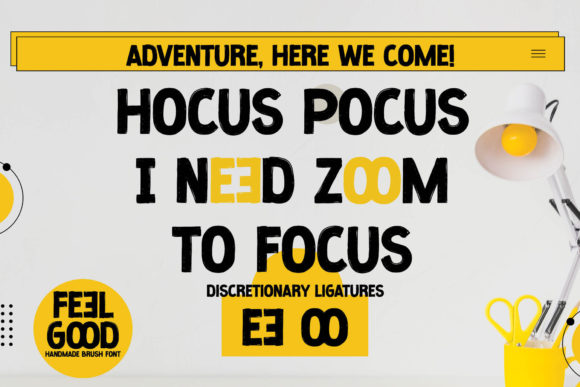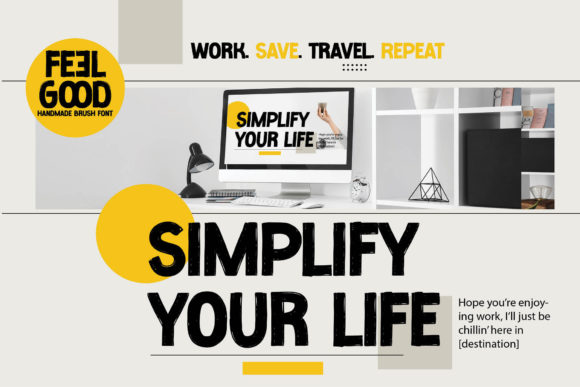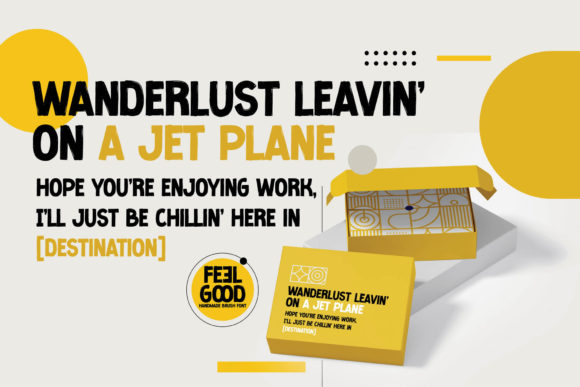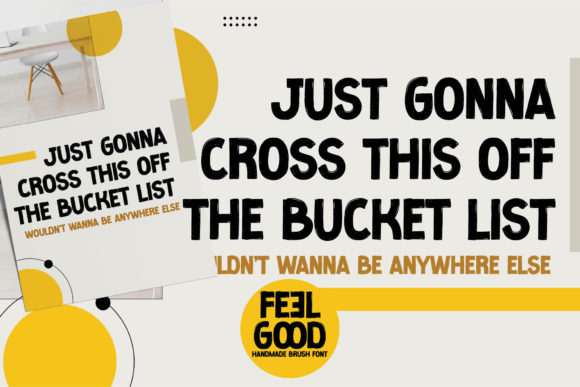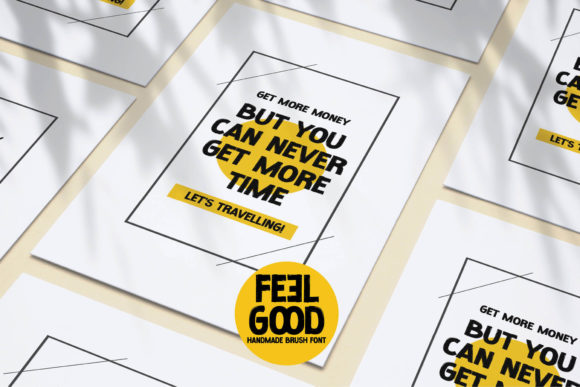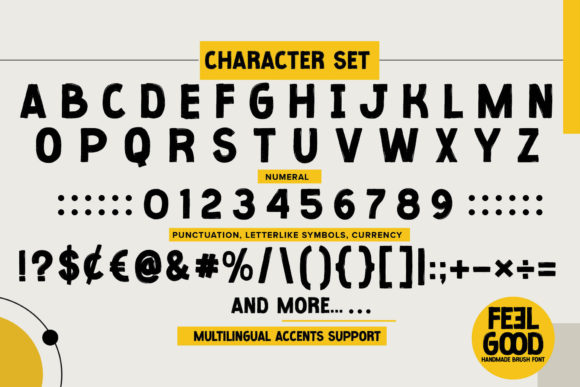
Introducing Feel Good Font: The Perfect Choice for Creative Projects
Are you a designer or crafter looking for a font that can add a personal touch to your creative projects? Look no further than Feel Good Font, a brush sans serif font that is written casually and quickly for a natural appearance. In this article, we’ll explore the features and benefits of Feel Good Font, and why it’s perfect for homeware designs, product packaging, banners, marketing materials, and other bold creative projects.
What is Feel Good Font?
Feel Good Font is a unique and versatile font that is designed to give your projects a friendly and approachable feel. It’s a brush sans serif font, which means it has the casual and spontaneous look of brush script, but with the clean and modern lines of sans serif typography. This font is perfect for designers and crafters who want to add a personal touch to their work, without sacrificing legibility or style.
Key Features of Feel Good Font
- Casual and Natural Appearance: Feel Good Font is written casually and quickly, giving it a natural and effortless look that’s perfect for creative projects.
- Brush Sans Serif Style: The font combines the best of both worlds, with the casual look of brush script and the clean lines of sans serif typography.
- Highly Legible: Despite its casual appearance, Feel Good Font is highly legible, making it perfect for use in a variety of applications, from body text to headings.
- Versatile: Feel Good Font is a versatile font that can be used in a wide range of creative projects, from homeware designs to product packaging, banners, and marketing materials.
Feel Good Font is perfect for designers and crafters who want to add a personal touch to their creative projects. Here are some ideas for using Feel Good Font:
- Homeware Designs: Use Feel Good Font to add a friendly and approachable touch to your homeware designs, from labels and packaging to signage and advertising.
- Product Packaging: Make your product packaging stand out with Feel Good Font, which is perfect for labels, branding, and marketing materials.
- Banners and Signage: Use Feel Good Font to create eye-catching banners and signage that grab attention and communicate your message.
- Marketing Materials: Add a personal touch to your marketing materials, from brochures and flyers to social media graphics and email newsletters.
Why Choose Feel Good Font?
There are many fonts to choose from, but Feel Good Font stands out for its unique combination of style, versatility, and legibility. Here are some reasons why you should choose Feel Good Font for your creative projects:
- Unique Style: Feel Good Font has a unique and distinctive style that’s sure to set your projects apart from the crowd.
- High-Quality Design: Feel Good Font is designed to high standards, with careful attention to detail and a focus on legibility and style.
In conclusion, Feel Good Font is a versatile and stylish font that’s perfect for designers and crafters who want to add a personal touch to their creative projects. With its casual and natural appearance, highly legible design, and wide range of applications, Feel Good Font is an excellent choice for homeware designs, product packaging, banners, marketing materials, and other bold creative projects. So why not give Feel Good Font a try and see how it can elevate your designs to the next level?